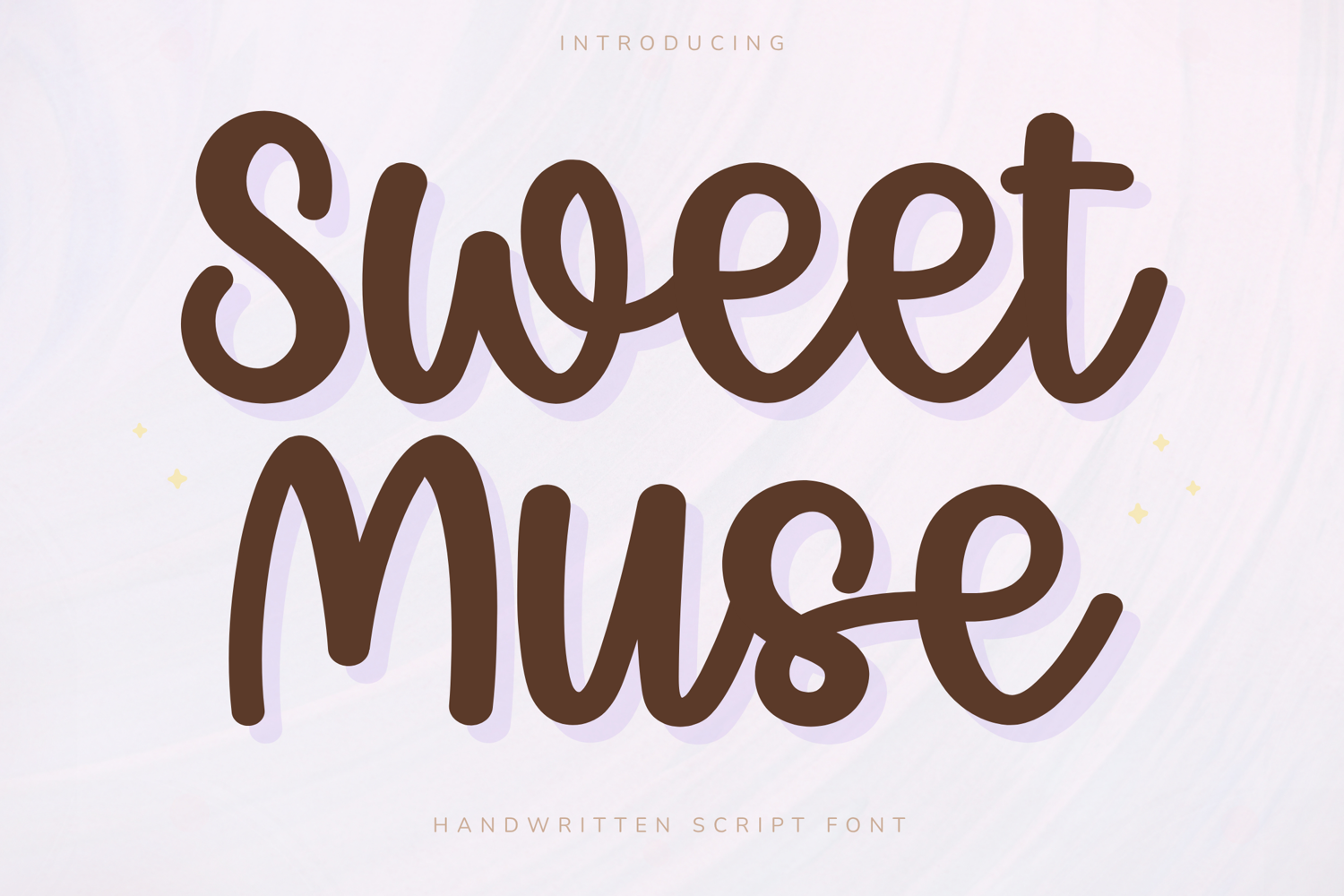
Sweet Muse - Handwritten Script Font
Sweet Muse – Handwritten Script Font
Sweet Muse is a delightful handwritten script font that blends playful charm with elegant simplicity. Featuring bold rounded strokes, smooth curves, and a soft feminine personality, this font creates a warm and inspiring aesthetic perfect for modern creative projects.
Its friendly handwritten style is highly readable while maintaining a unique handcrafted feel, making Sweet Muse ideal for Cricut projects, planner covers, journals, stickers, branding, packaging, and social media graphics.
Key Features:
Uppercase and lowercase letters
Numbers and punctuation
Bold and rounded handwritten script
Smooth flowing letterforms
Design Style:
Sweet Muse combines a cute handwritten look with professional usability. The balanced letterforms and playful curves create a soft, feminine font that feels both creative and approachable.